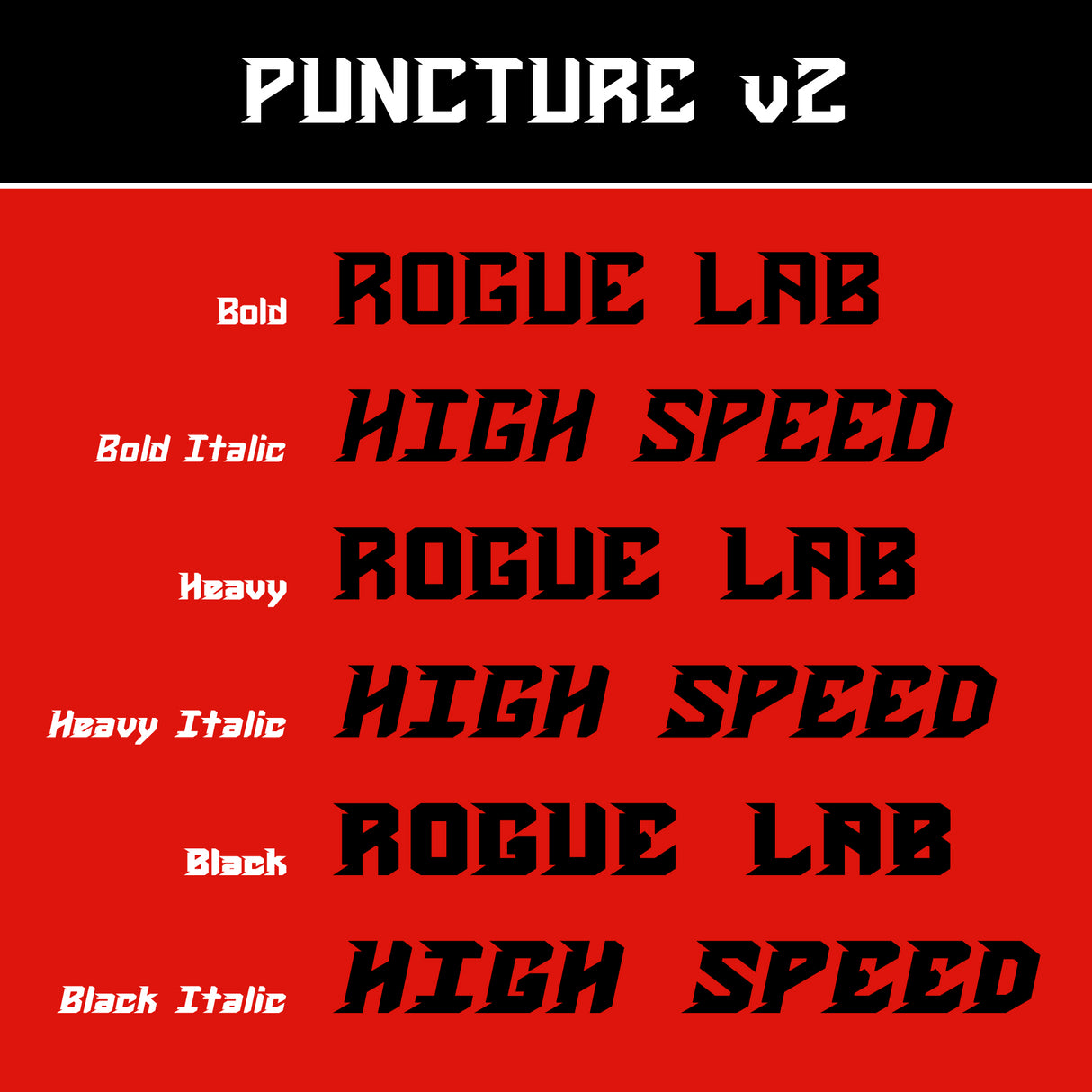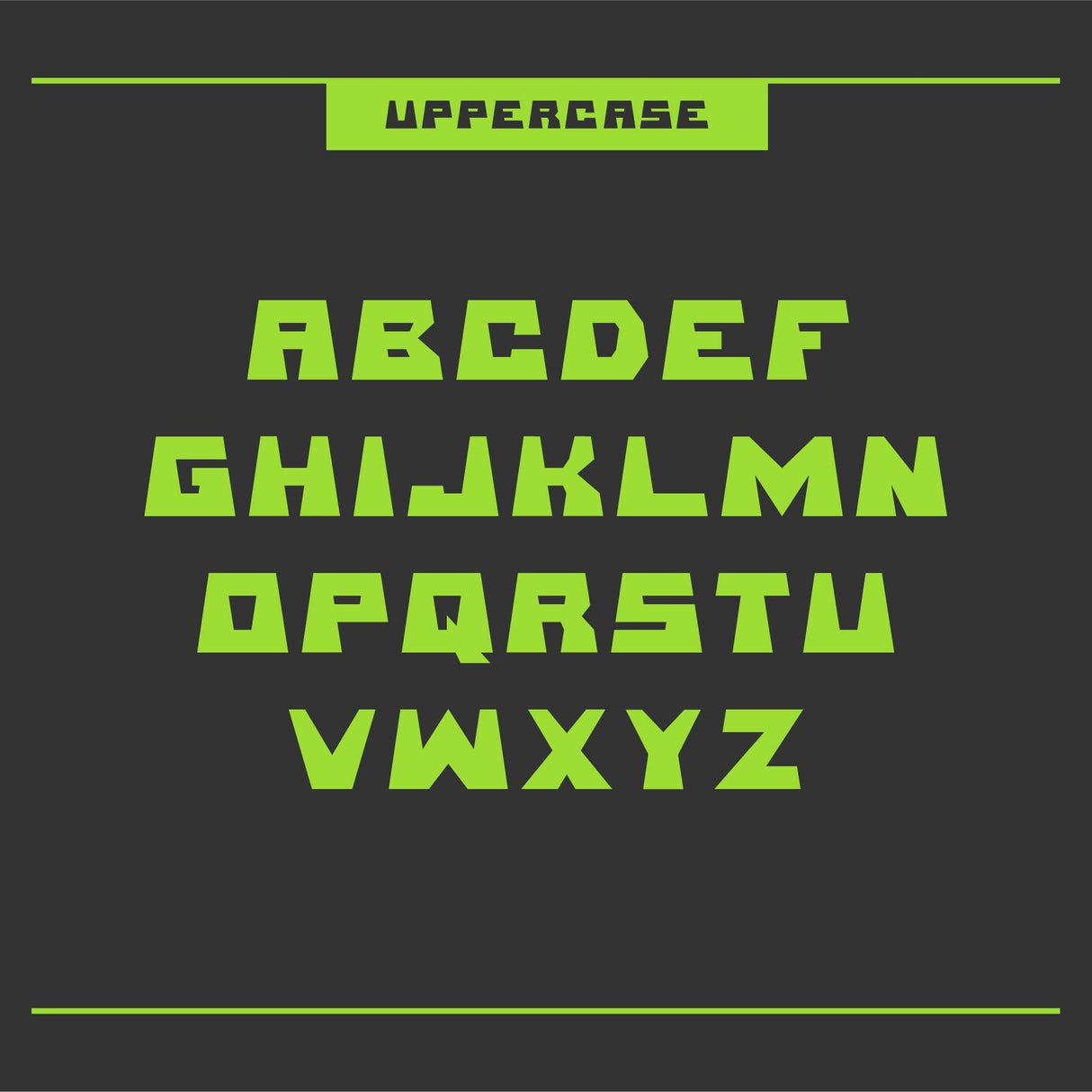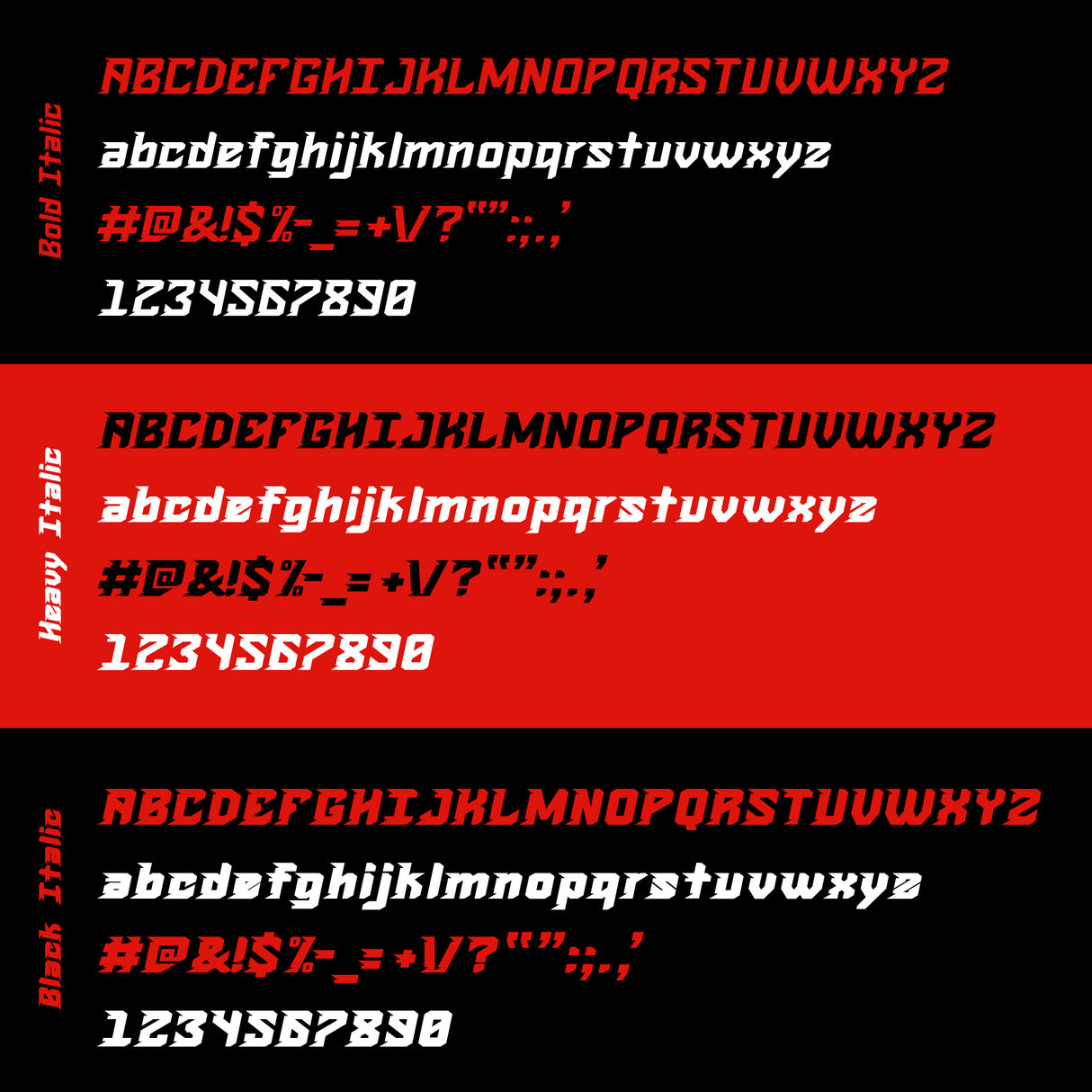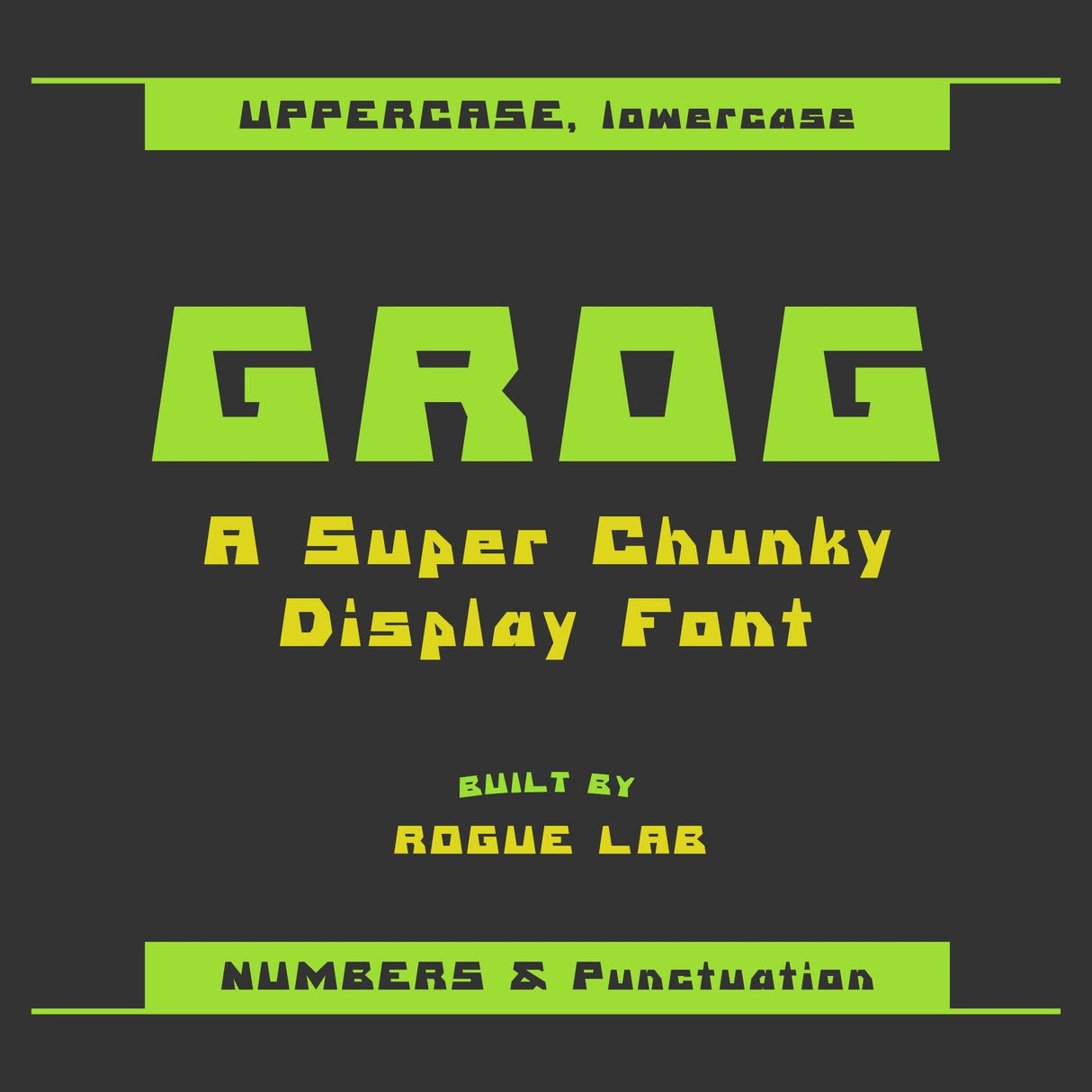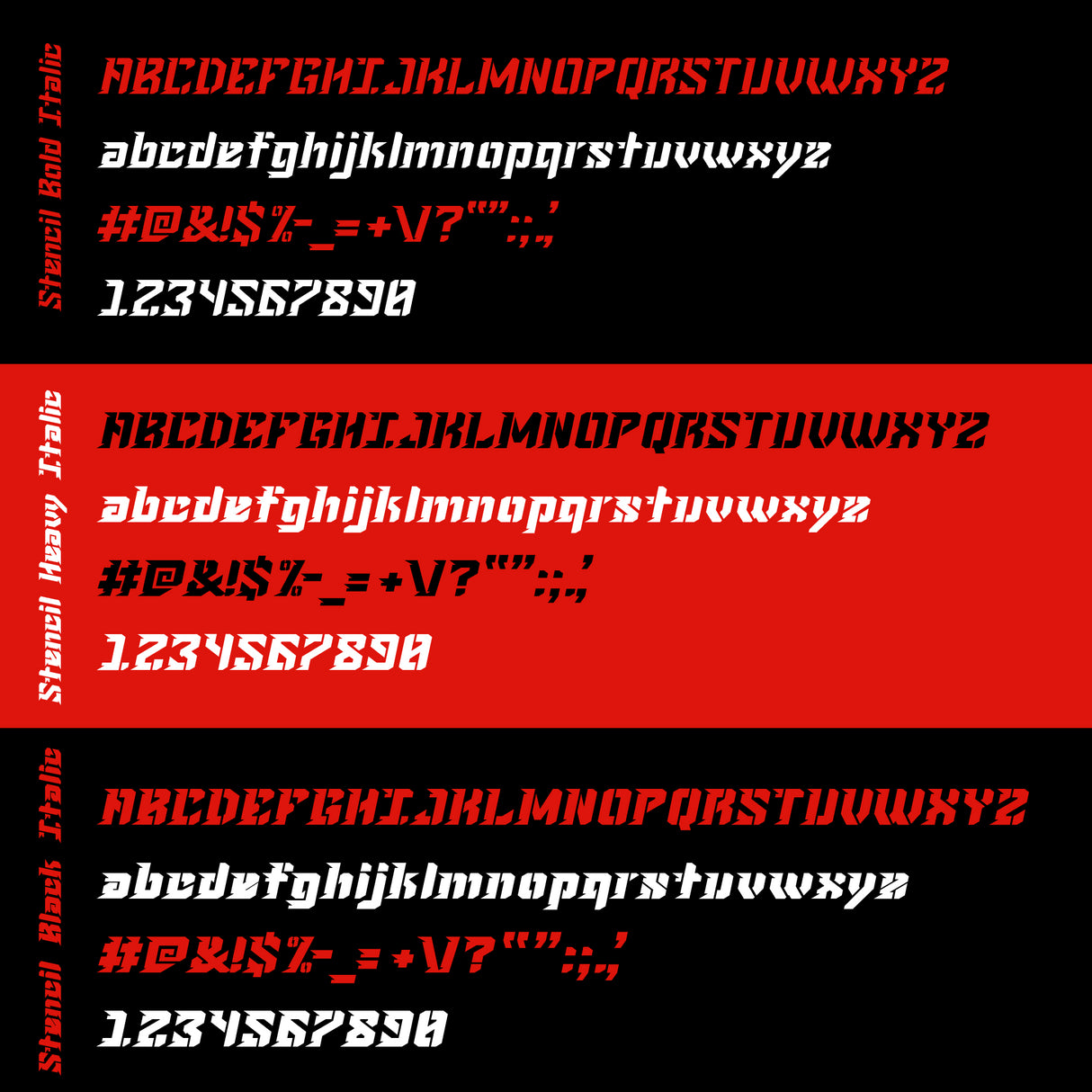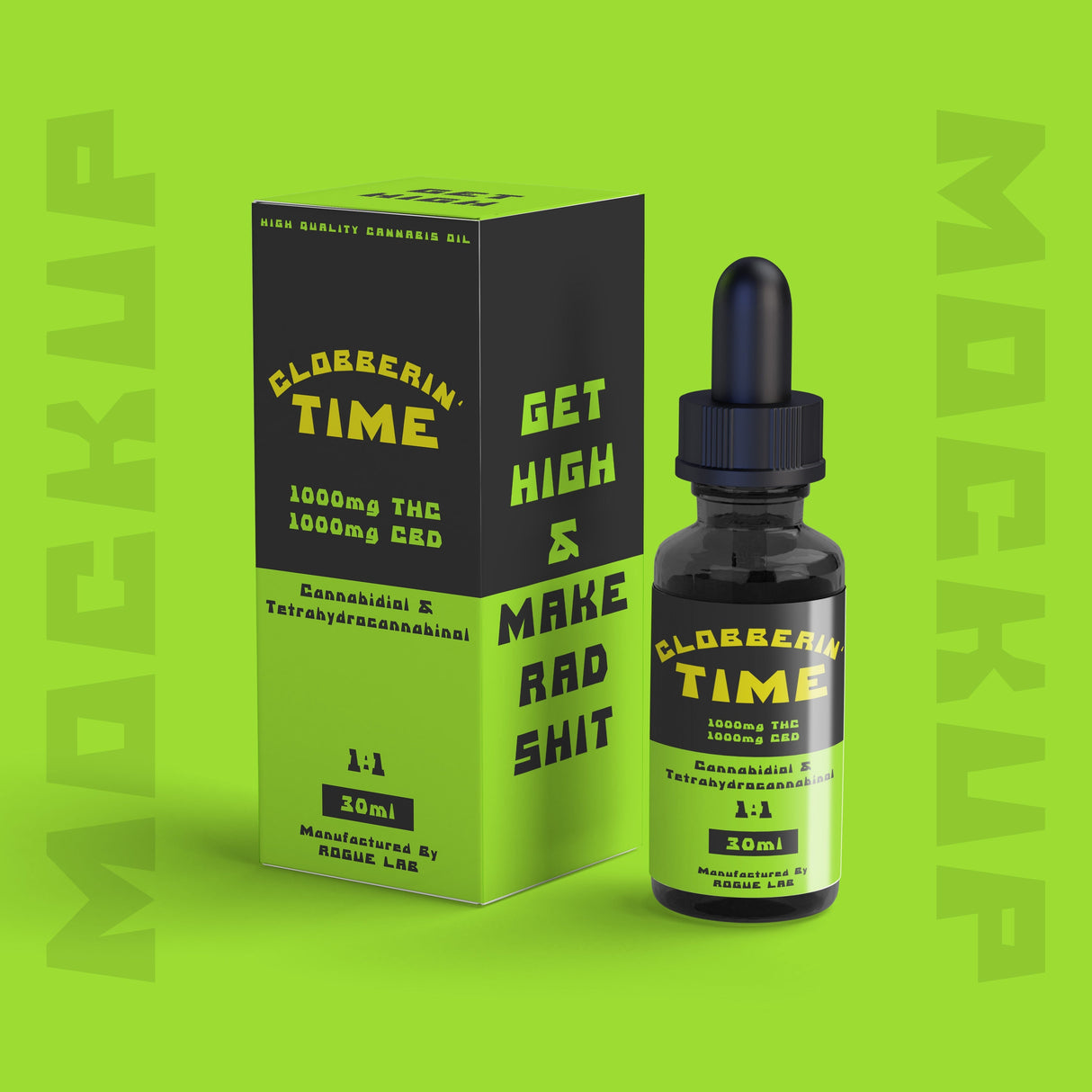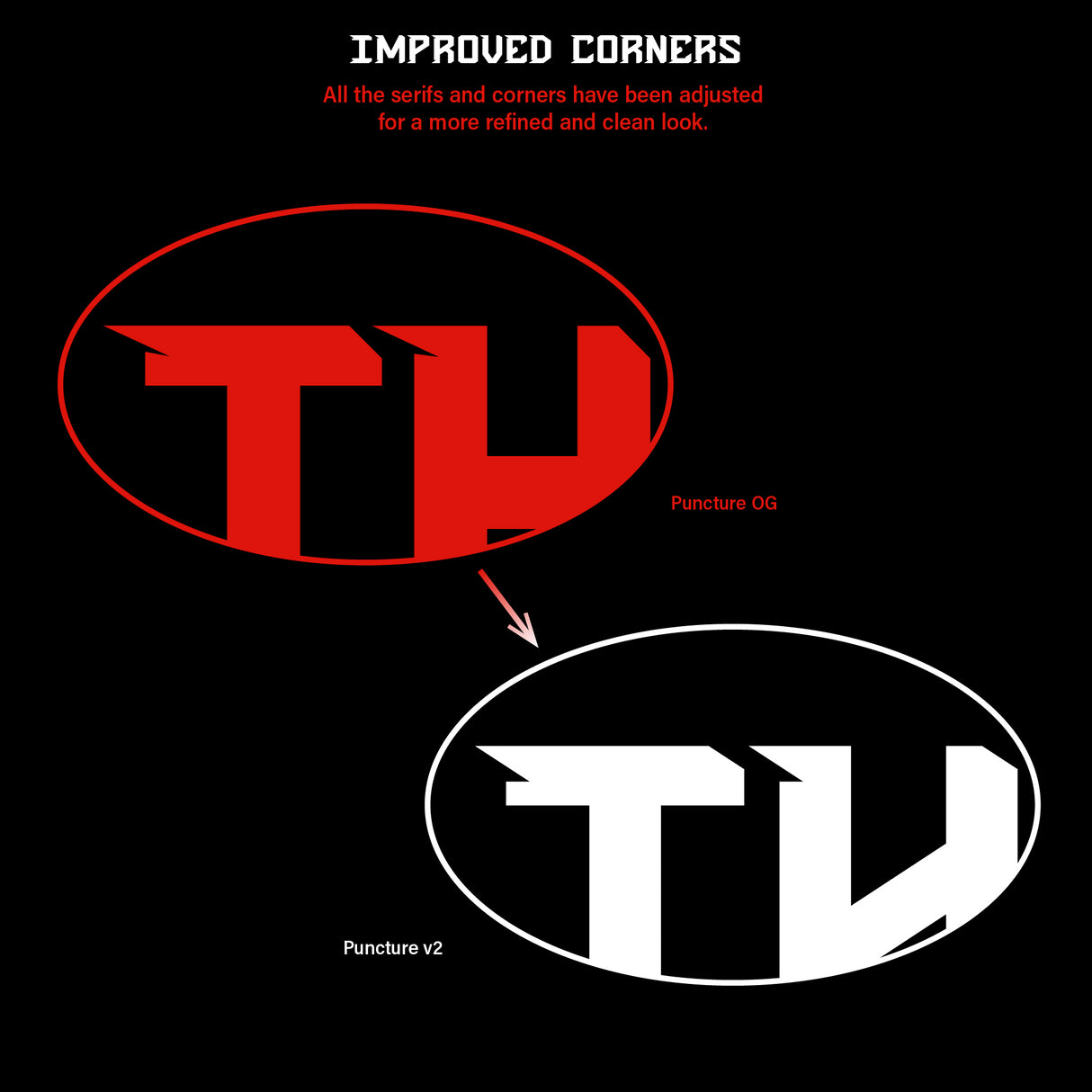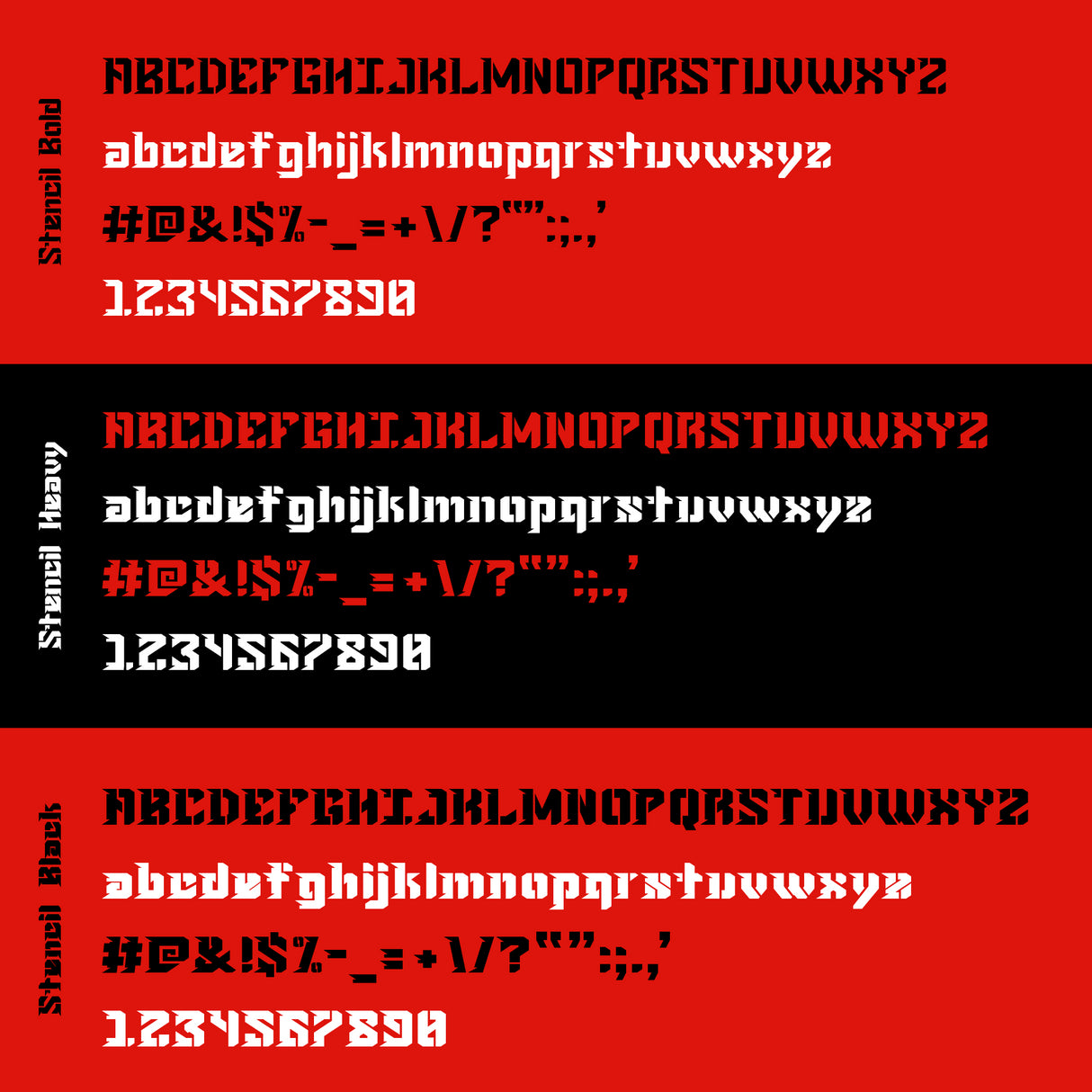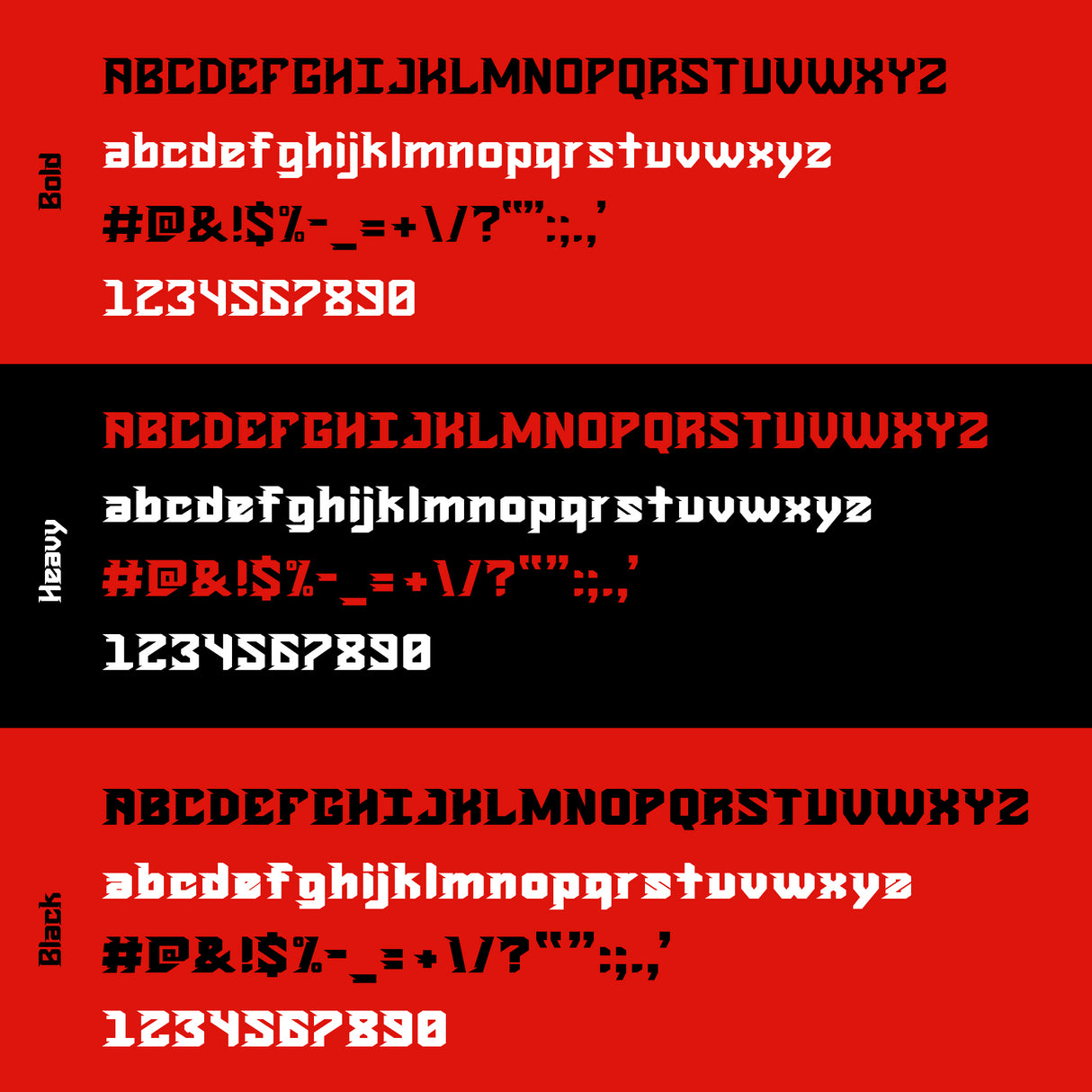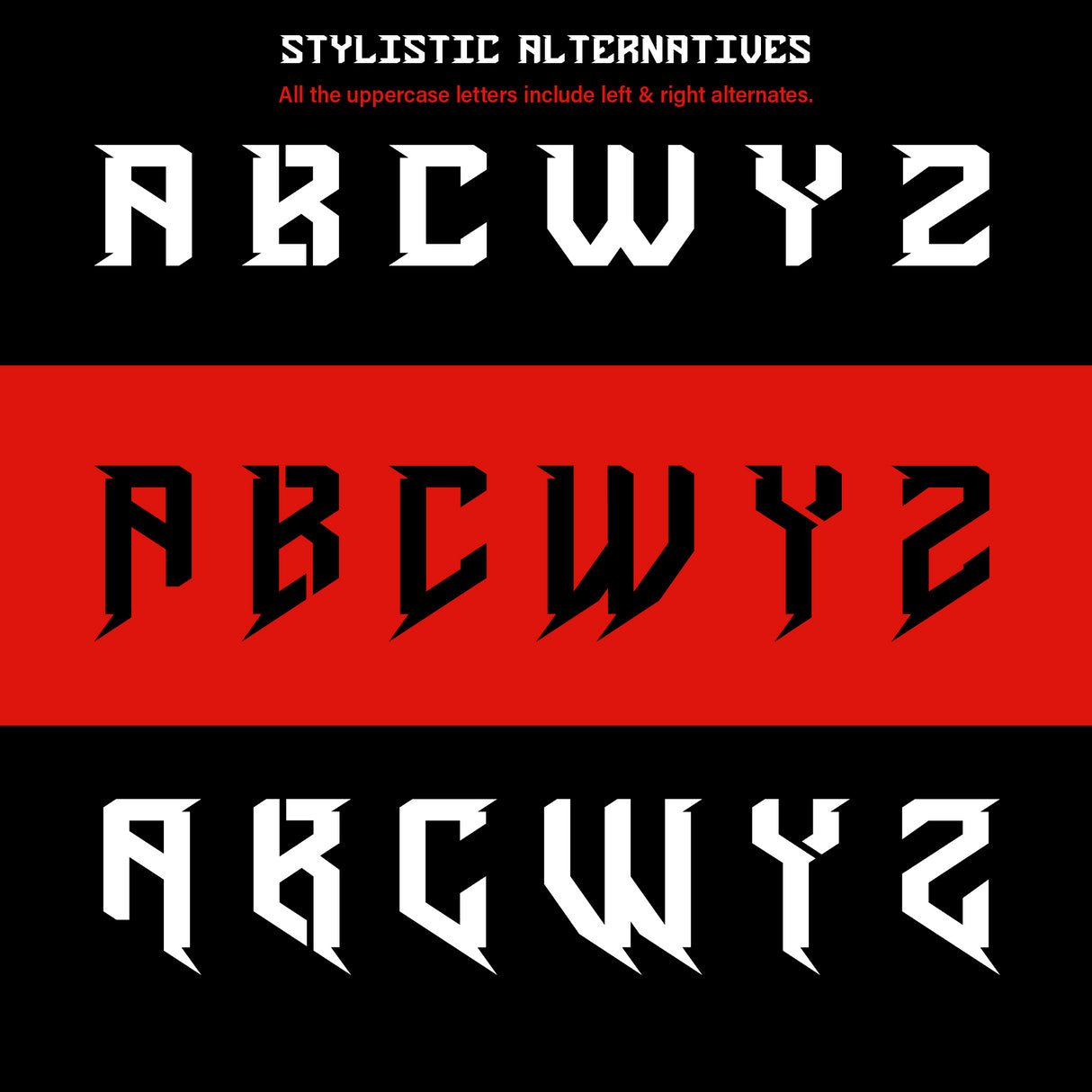
This font pack includes a variety of our heaviest hitters so you can rule over any project with ease.
PUNCTURE V2
A high-speed, bold, and hardworking display typeface. Puncture is best used in headlines, logos, branding, and other large format types.
We've completely rebuilt Puncture from the ground up with newly refined letters, improved corners, three new weights (bold, heavy, black), new lowercase letters, and a complete stencil version. All of this has turned Puncture into a family of 12 fonts in total! We've included multiple alternate styles and extra vector shapes to aid in your design projects and make this a complete logo-building asset all within one font!
FEATURES
• 3 New Weights: Bold, Heavy & Black
• New Lowercase Characters
• Additional Complete Stencil Version
• Regular & Italics
• New Numerals & Primary Punctuation
• Multiple Alternate Styles
• Extra vector shapes
SPELLCASTER
Invoke the darkness with Spellcaster, a rough and spine chilling display font that will suit the needs of any sorcerer. Spellcaster is best used in headlines, logos, product design, and much more.
FEATURES
• Uppercase Character Set A-Z
• Numerals & Primary Punctuation
• 8 Bonus Vector Icons
GROG
A chunky, knuckle dragging display font built for designs that need to clobber anything in their path. Grog is best used in headlines, logos, product design, and much more.
FEATURES
• Uppercase and Lowercase Character Set A-Z
BLUDGEONER
A rough and dirty blackletter display font that hits like a bat to the teeth. Bludgeoner is best used in headlines, and other large format type, although it's legibility at smaller scales might surprise you.
Bludgeoner is mainly an all uppercase font, but we've included lowercase variants that have lost the outer spurs to give you more creative flexibility.
• Uppercase and Lowercase Character Set A-Z
• Numerals & Primary Punctuation
• Extras: vector bat, hatchet, and creep